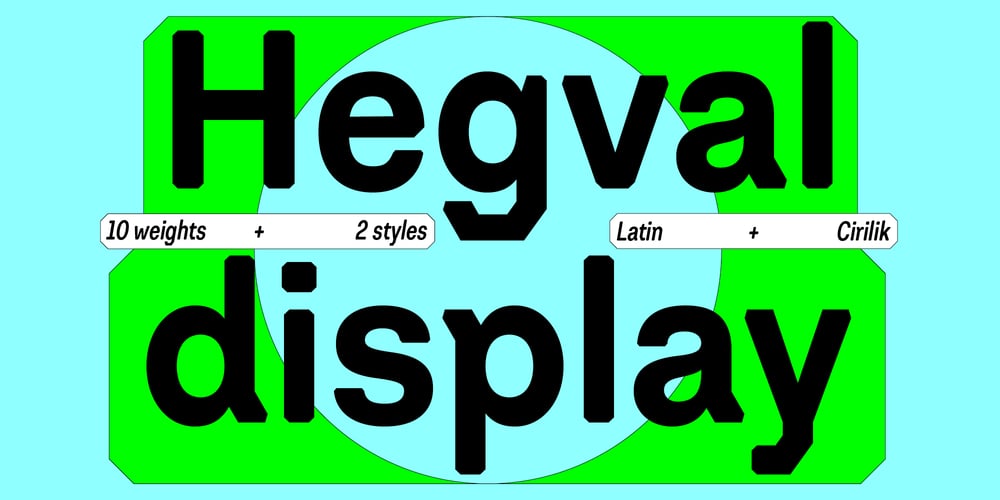
Hegval Display Font Family was designed by Mariya V. Pigoulevskaya, Mariya Lish and published by Inhouse Type. Hegval Display contains 20 styles and family package options. Hegval Display is a sans-serif type family inspired by Gridnik and Helvetica. It is a geometric and neo-grotesque fusion. Mildly eccentric, Hegval Display features minimal stroke contrast, geometric design elements and selective emojis. Hegval Display is available in ten weights and two styles, both upright and oblique. The character set supports extended Latin and Cyrillic. OpenType features include ligatures, tabular features and fractions.